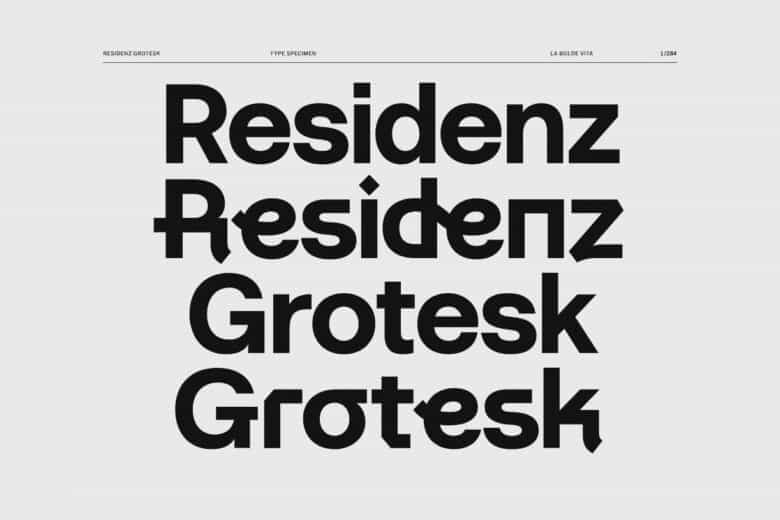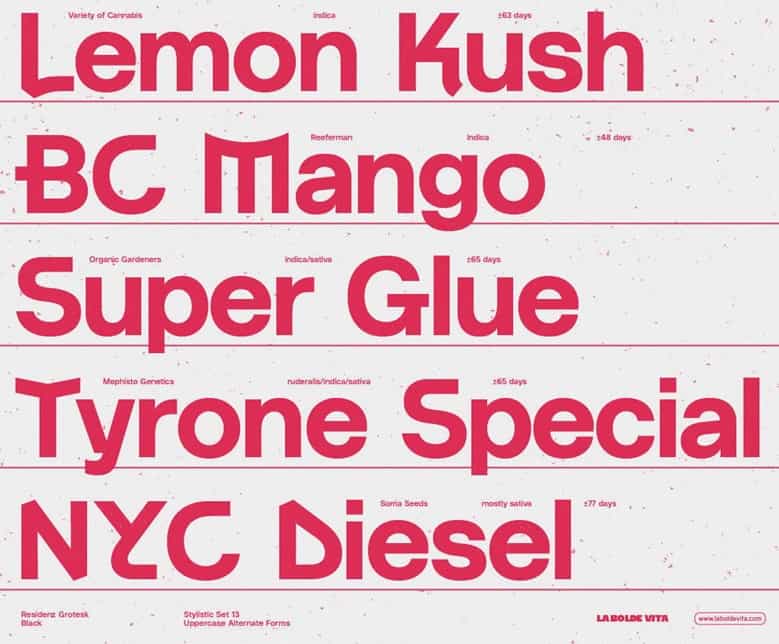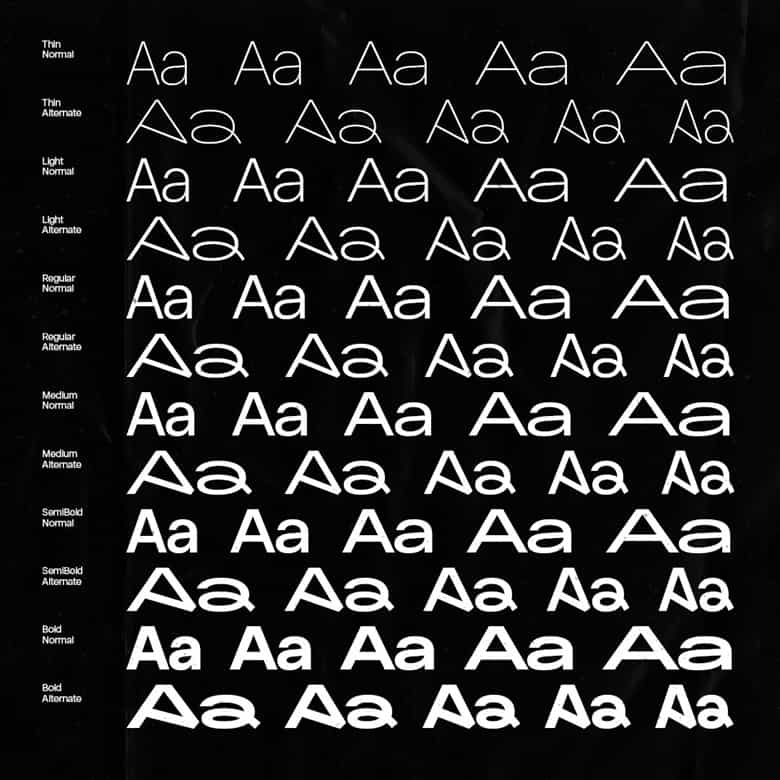
With the eternal zeitgeist of grotesque typefaces behind it, Residenz Grotesk wants to be a neutral workhorse, that is still friendly yet also an experimental playground for contrasts and extrema. In the extreme widths the well known constructed letterforms are also pushed to their limits. Mixed in as individual letters, or stepped, is a complete alternative alphabet drawn from the shapes of handwriting and graffiti. It is simply a means of easily putting in a really new touch wherever required.